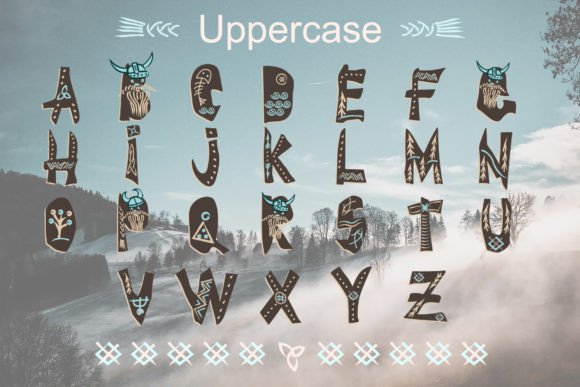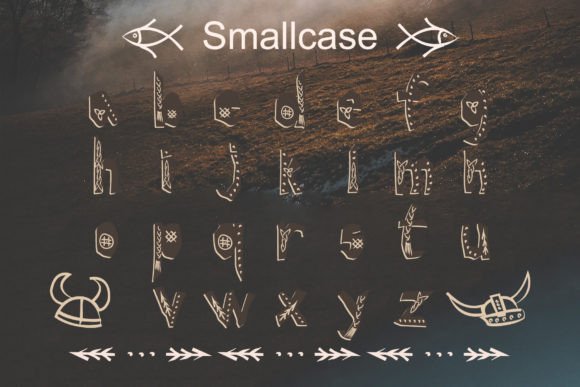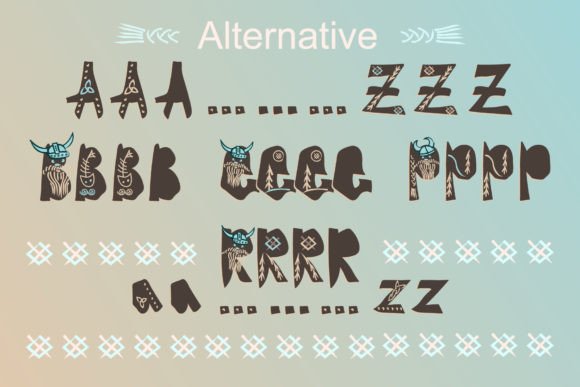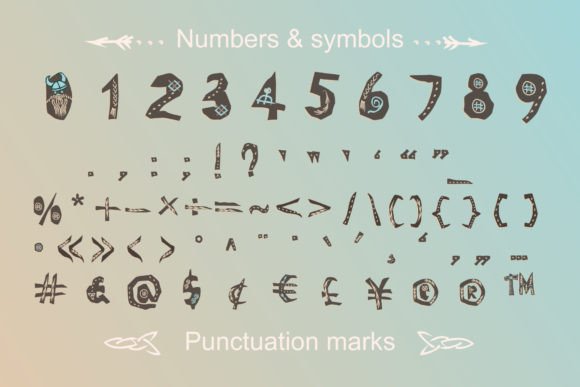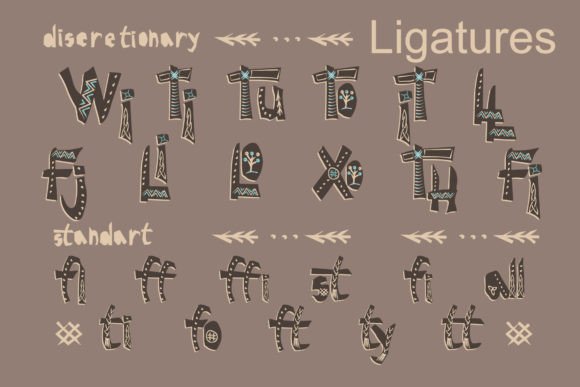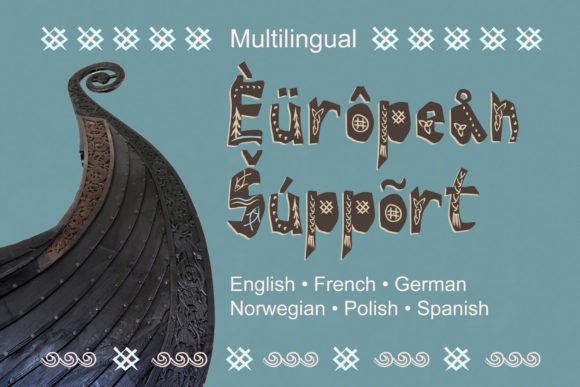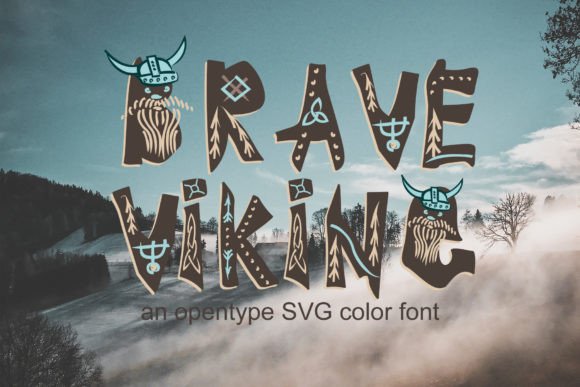
Brave Viking Font: Unleash Your Creativity with this Modern Display Font
Are you a designer, crafter, or DIY enthusiast looking for a unique and modern font to elevate your creative projects? Look no further than the Brave Viking Font! This stunning display font is perfect for designing logos, quotes, prints on t-shirts, modern typography posters, children’s posters, and lovely cards.
What is Brave Viking Font?
Brave Viking is a modern display font that exudes a sense of adventure, courage, and playfulness. Its bold and sturdy design makes it perfect for headlines, titles, and short phrases. The font’s unique and distinctive style is inspired by the fearless Viking warriors of legend, making it an excellent choice for designs that require a touch of boldness and personality.
Key Features of Brave Viking Font
- Modern Display Font: Brave Viking is a modern display font designed to make a statement. Its sleek and contemporary design ensures that your creative projects stand out from the crowd.
- Color Font: This font comes in a range of colors, allowing you to add an extra layer of creativity to your designs. Use it to create eye-catching logos, posters, and prints that pop.
- Versatile: Brave Viking is an incredibly versatile font that can be used for a wide range of creative projects, from designing logos and posters to crafting quotes and lovely cards.
- Easily Readable: Despite its bold and playful design, Brave Viking is surprisingly easy to read, making it perfect for use in both digital and print formats.
Use Cases for Brave Viking Font
- Logos: Use Brave Viking to create bold and memorable logos for your business, brand, or personal project.
- Quotes and Posters: Design stunning quotes and posters that inspire and motivate. Perfect for social media, office walls, or motivational boards.
- T-Shirt Prints: Create eye-catching t-shirt prints that make a statement. Great for personal use, gifts, or merchandise.
- Children’s Posters: Brave Viking’s playful design makes it perfect for creating fun and engaging posters for kids.
- Lovely Cards: Add a touch of personality to your greeting cards, invitations, and other paper crafts.
- Unique Design: Brave Viking’s distinctive design ensures that your creative projects stand out from the crowd.
- Easily Customizable: This font is easy to customize, allowing you to experiment with different colors, sizes, and styles.
- High-Quality: Brave Viking is a high-quality font designed to deliver exceptional results in both digital and print formats.
- Perfect for Designers and Crafters: Whether you’re a professional designer or a DIY enthusiast, Brave Viking is the perfect choice for anyone looking to add a touch of creativity to their projects.